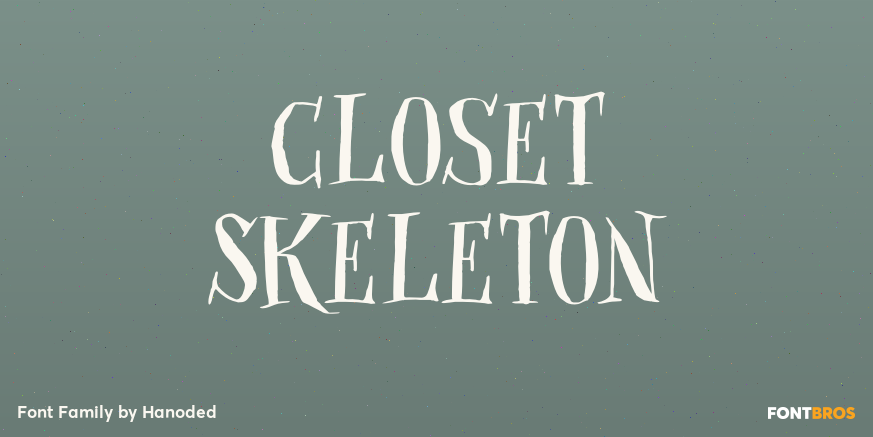
Closet Skeleton
About Closet Skeleton
Some time ago I stumbled upon a little book called \’De Sprookjeshoorn\’ (\’Horn of Fairy Tales\’) by Anton Eijkens (1920 – 2012). It was published in 1946 and contains several authentic and unique fairy tales – unfortunately unreadable to modern children,…